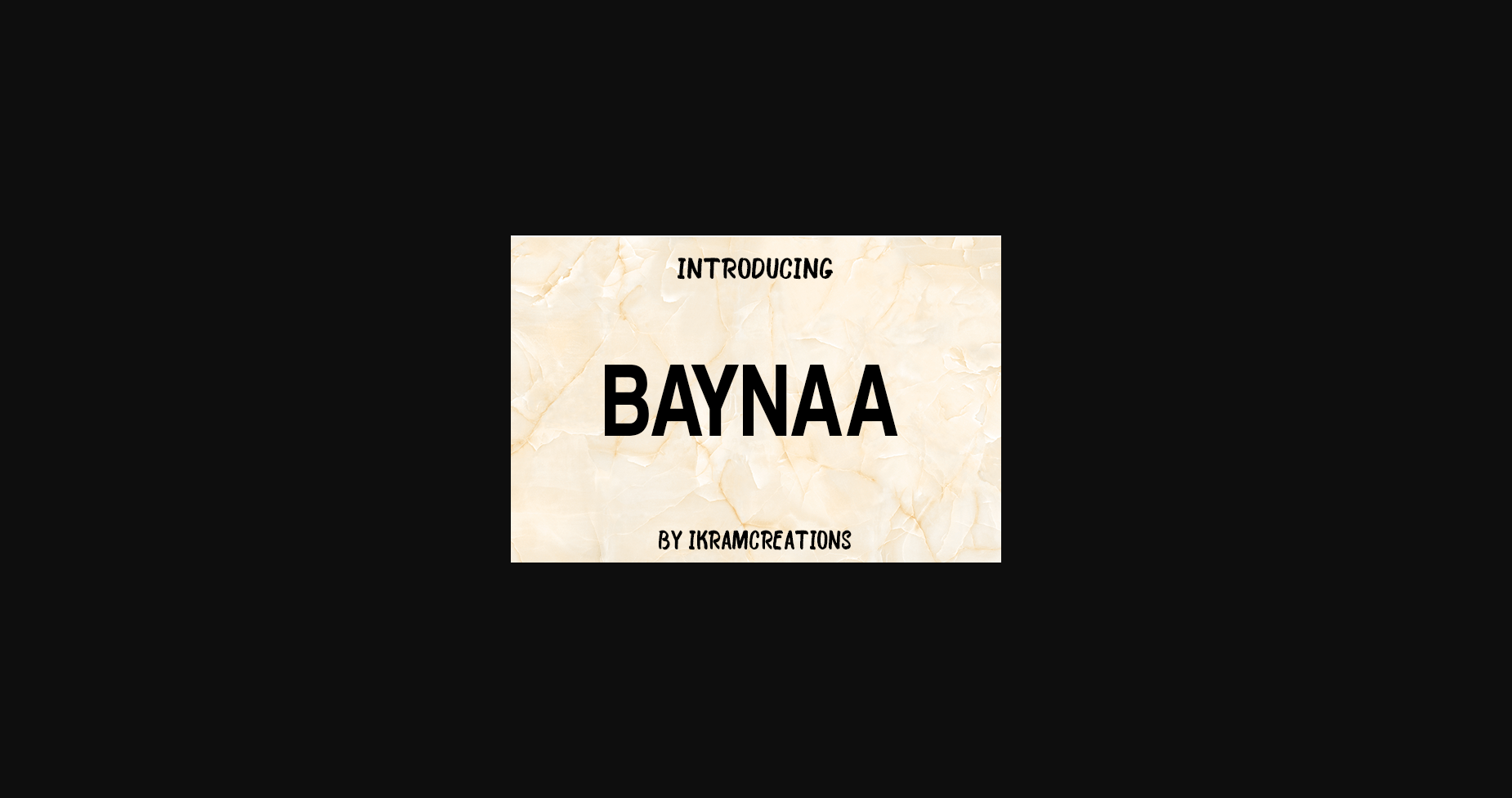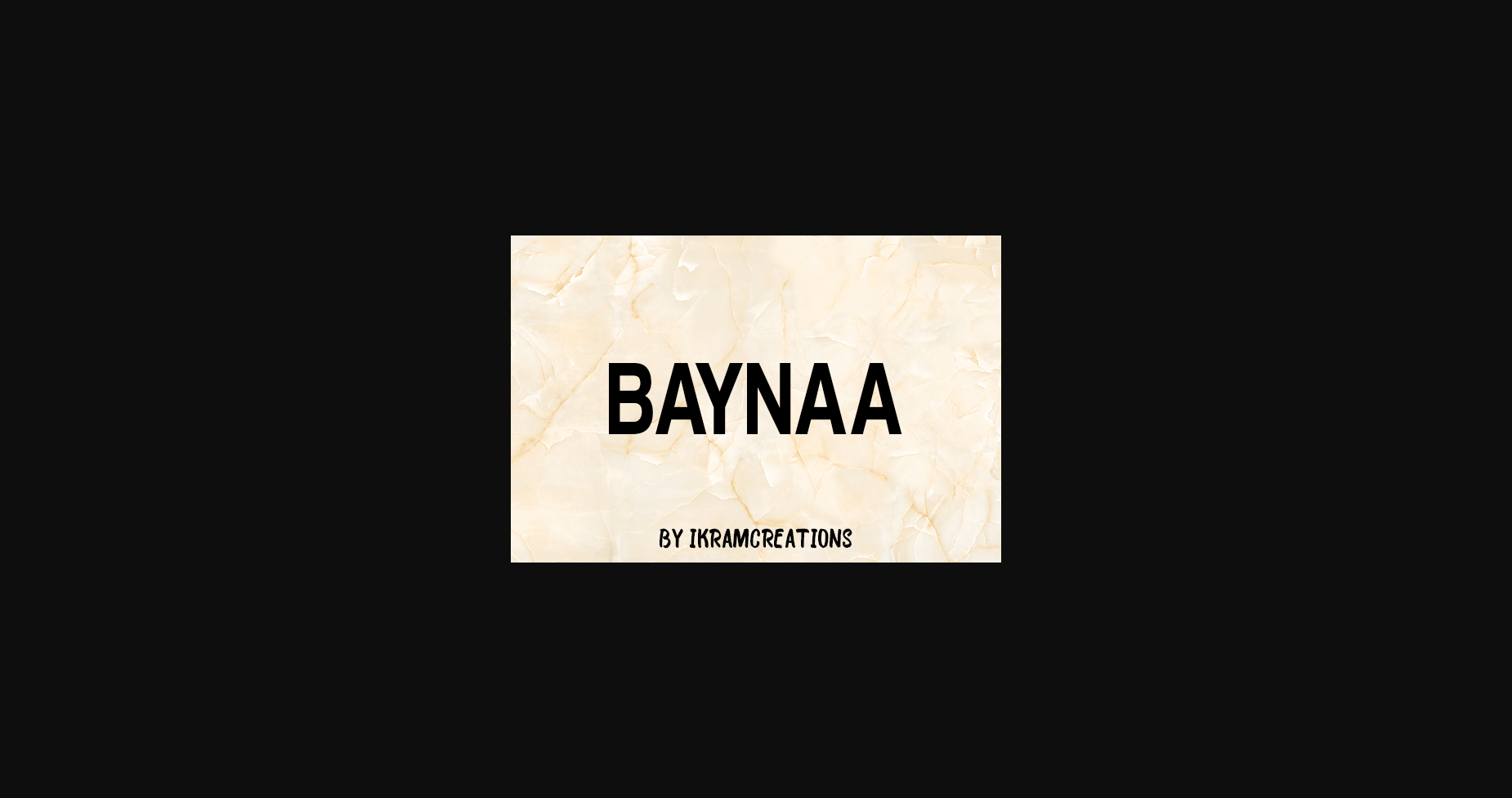
About Baynaa Font
Baynaa is a simple, classic, and neat sans serif font. No matter the topic, this font will be an incredible asset to your fonts’ library, as it has the potential to elevate any creation.